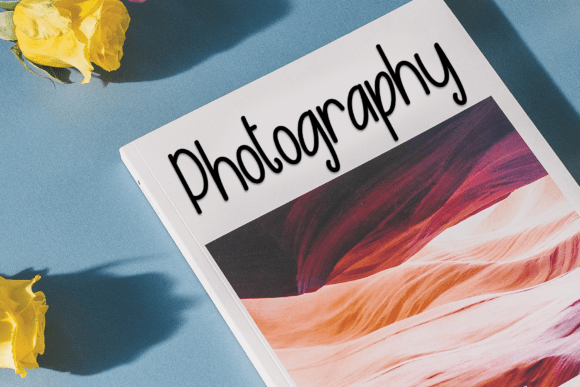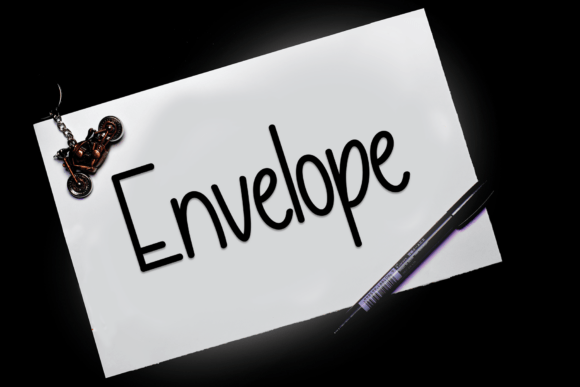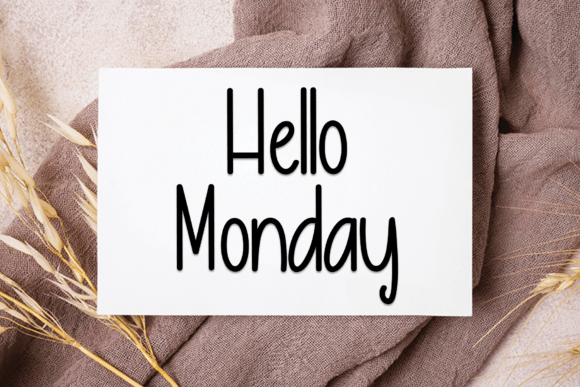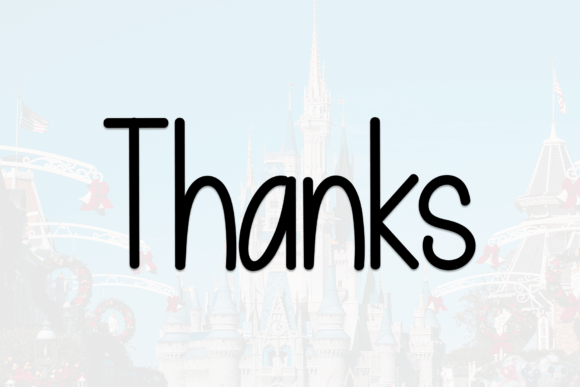
The Magical World of Disney Font: A Designer’s Delight
I’ll never forget the time I was working on a project for a children’s birthday party invitation. I had the design concept all sorted out, but I was struggling to find the perfect font that would capture the whimsical and playful essence of the event. That’s when I stumbled upon the Disney font, and it was love at first sight! ✨ The smooth strokes and organic lines of this charming handwritten font immediately evoked a relaxed atmosphere, and I knew I had found the perfect fit.
As a designer, I’m always on the lookout for fonts that can bring a touch of personality to my projects. Here’s what I love about the Disney font:
- ✨ Unique character: The Disney font has a distinct, handcrafted feel that sets it apart from more generic fonts.
- ✅ Versatility: Whether I’m working on branding, invitations, or social media graphics, this font adapts seamlessly to different design contexts.
- 💕 Emotional connection: The Disney font has a way of evoking a sense of nostalgia and warmth, making it perfect for projects that require a personal touch.
Of course, no font is perfect, and here are a few quirks to keep in mind:
- 🤔 Limited use in formal contexts: While the Disney font is amazing for creative projects, it may not be the best fit for more formal or corporate designs.
- ⚠️ Legibility at small sizes: As with many handwritten fonts, the Disney font can become a bit tricky to read at very small sizes.
- Experiment with the font’s OpenType features, such as stylistic alternates and glyphs, to add some extra flair to your design.
The Story Behind Disney Font
The Disney font was inspired by the iconic Disney brand, with its rich history of creating magical experiences for audiences around the world. The font’s designer aimed to capture the essence of Disney’s whimsical and imaginative spirit, while also creating a font that would be versatile and easy to use. The result is a font that’s both nostalgic and modern, with a unique character that’s sure to delight designers and audiences alike.
| Font Name | Disney Font |
| Author | KC Production |
| What is the Disney font? | The Disney font is a charming handwritten font filled with a sense of heartfelt perfection, characterized by smooth strokes and organic lines. |
| What can I use the Disney font for? | The Disney font is perfect for a variety of design projects, including branding, invitations, social media graphics, and more. |
| Is the Disney font easy to read? | Yes, the Disney font is generally easy to read, but it may become a bit tricky at very small sizes. |